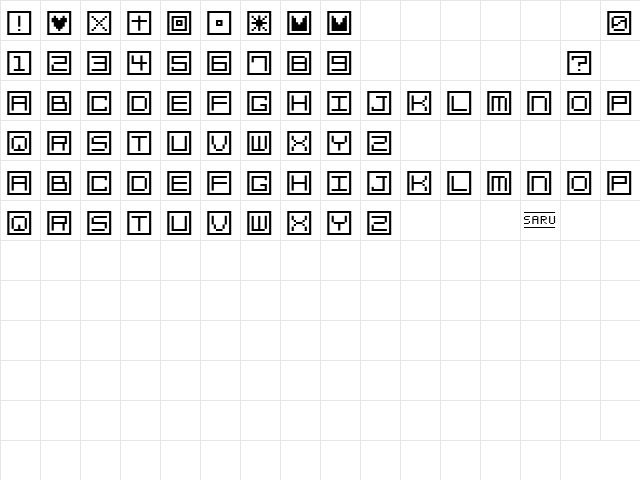
Bit Screen11 (sRB) Regular Font Preview
Bit Screen11 (sRB) Regular
Design Context for Bit Screen11 (sRB) Typeface
Bit Screen11 (sRB) takes a measured approach to typography — its balanced proportions and neutral character make it a reliable workhorse for both digital and print work.